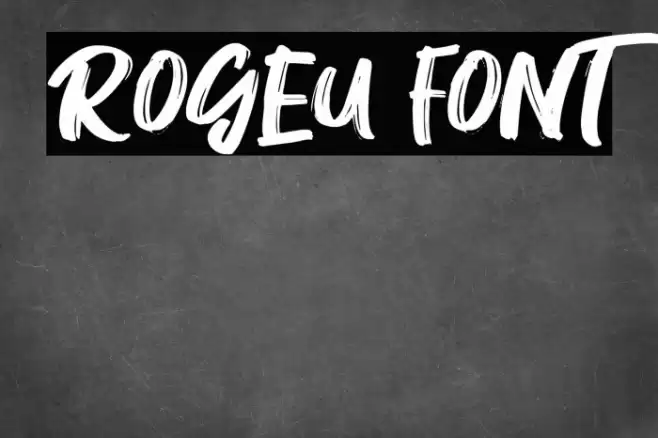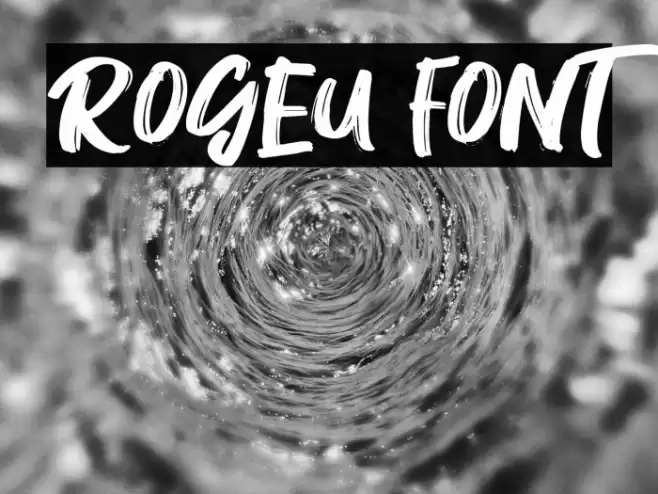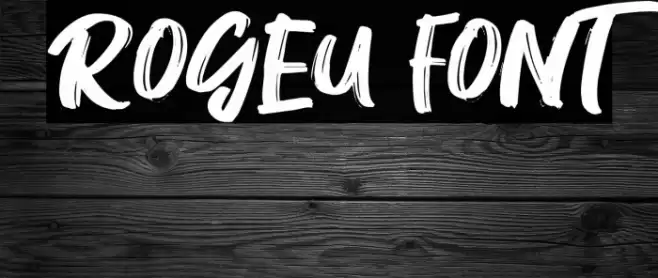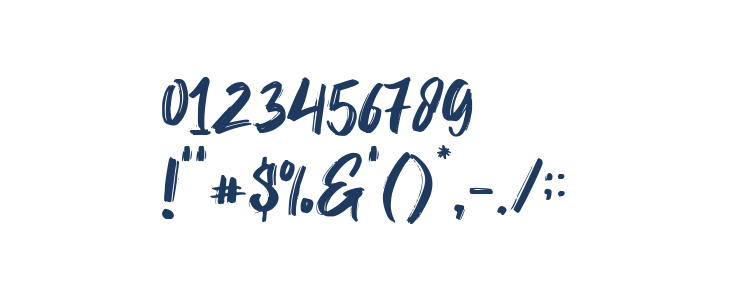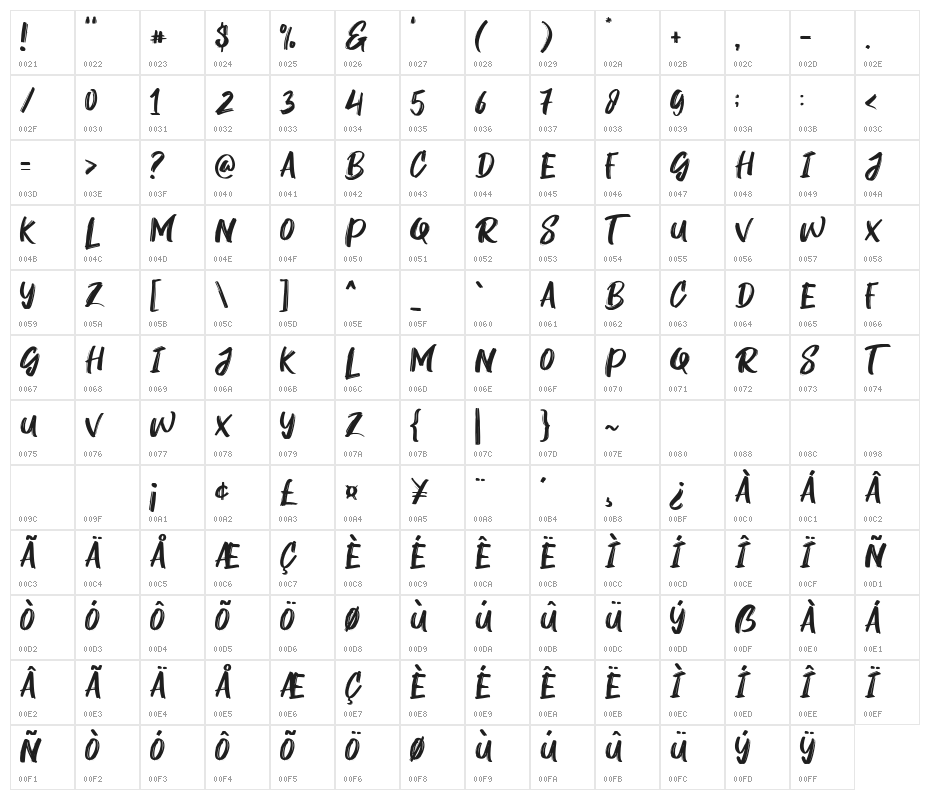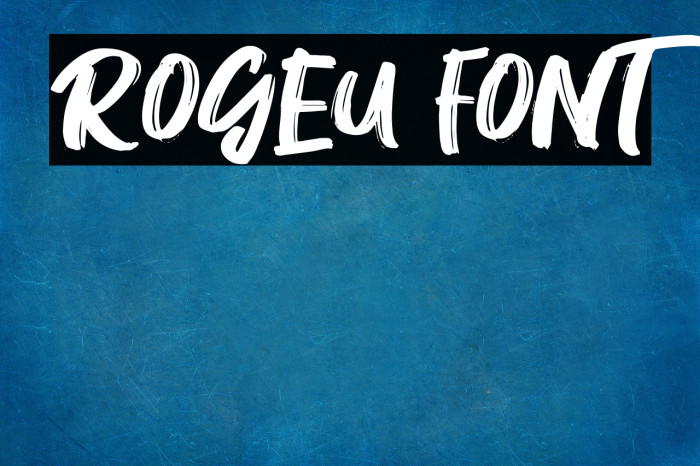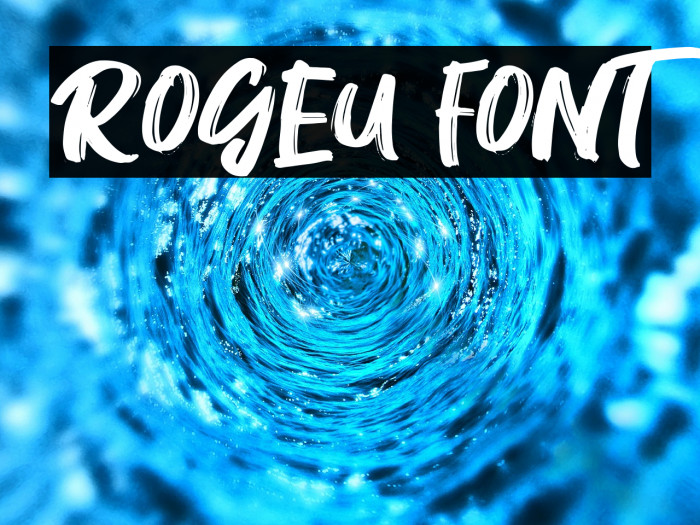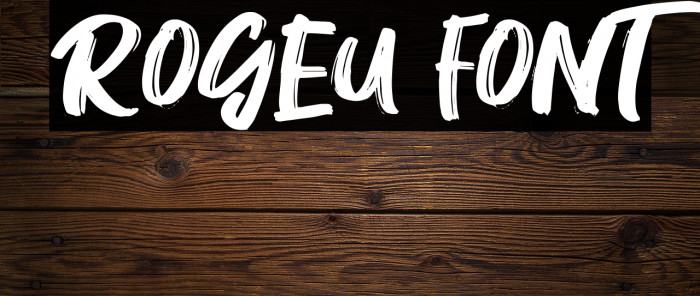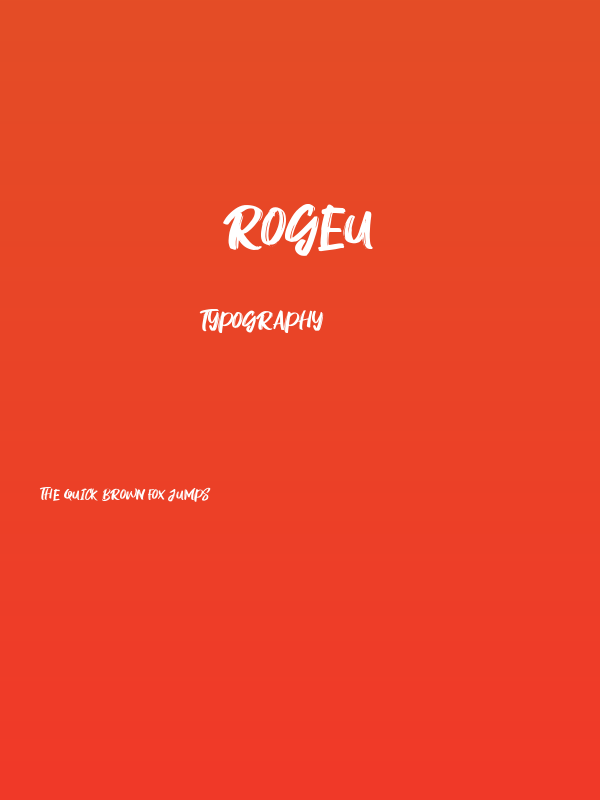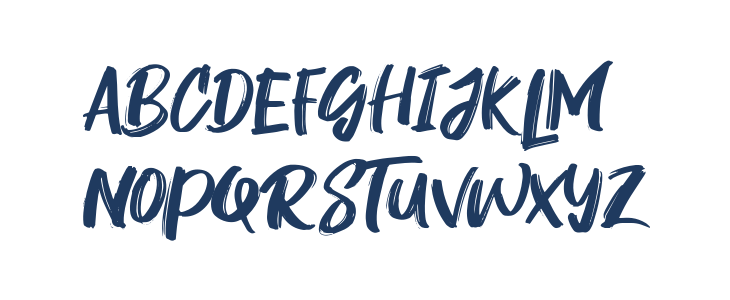
Rogeu Font
Rogeu Description
This font features a bold and expressive brush script style, characterized by its dynamic and energetic strokes. The letters are crafted with a sense of movement, giving them a lively and spontaneous appearance. The uppercase and lowercase letters maintain a consistent flow, with some characters exhibiting unique flourishes and loops. The numbers and special characters are equally bold, maintaining the overall aesthetic. This font's design is perfect for projects that require a personal and artistic touch, such as posters, branding, and creative headlines.
A bold, expressive brush script font with dynamic strokes and artistic flair from Uncategorized fonts.
- Proposed Projects: Ideal for posters, branding, creative headlines, and artistic designs.
- Use Case: Headlines, Logos, Artistic designs